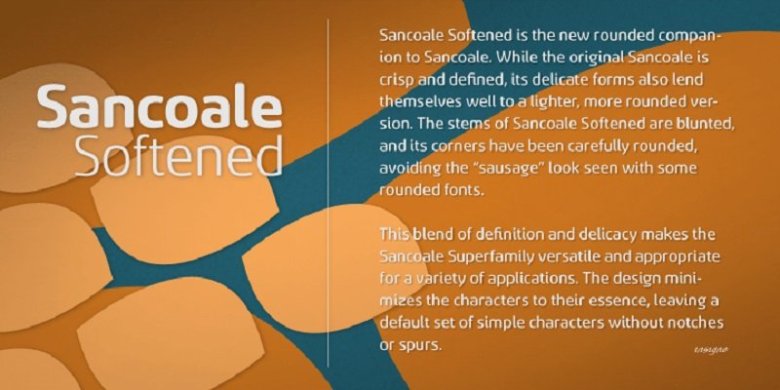
Sancoale Softened Font Family
Sancoale Softened is the new rounded companion to Sancoale. While the original Sancoale is crisp and defined, its delicate forms also lend themselves well to a lighter, more rounded version. The stems of Sancoale Softened are blunted, and its corners have been carefully rounded, avoiding the “sausage” look seen with some rounded fonts.
This blend of definition and delicacy makes the Sancoale Superfamily versatile and appropriate for a variety of applications. The design minimizes the characters to their essence, leaving a default set of simple characters without notches or spurs. However, the typeface family’s slightly technological feel still appears friendly and approachable to the reader. It’s slightly condensed proportions and tall x-height also make the design readable at a wide range of sizes, which works especially well for web pages. These softer letterforms give Softened its unique, futuristic look–great for distinguishing your text or display. There are six weights with true italics.